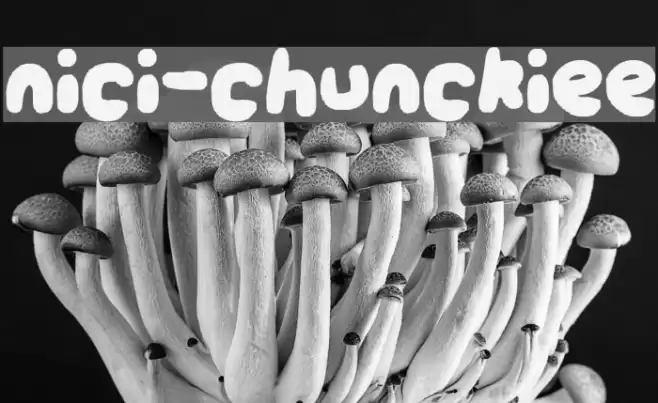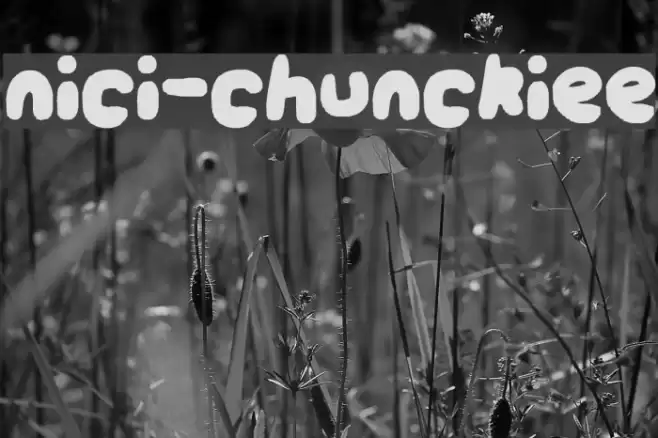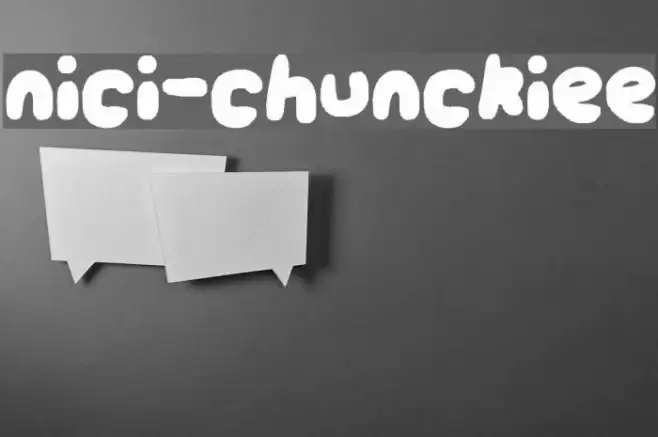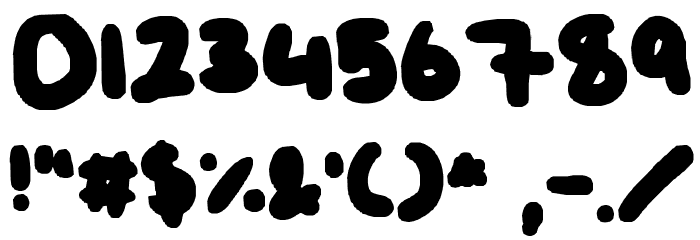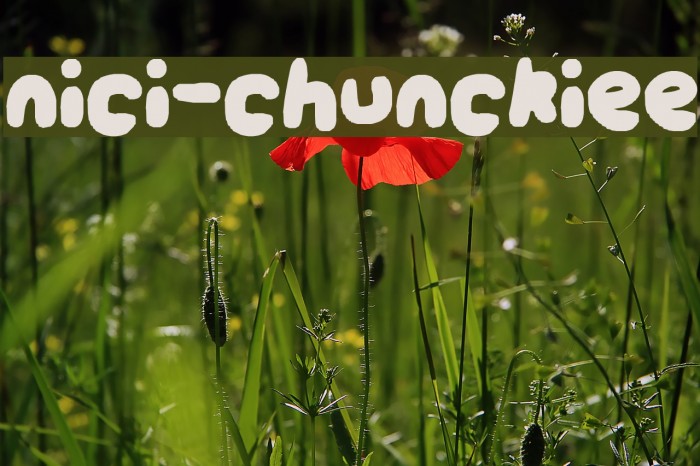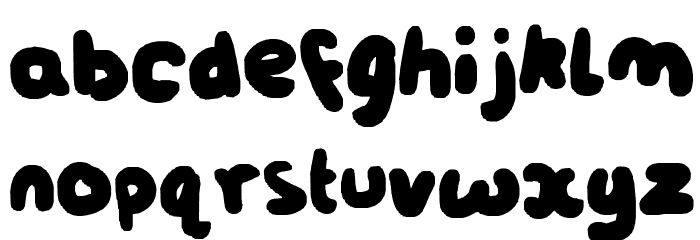
nici-chunckiee Font
nici-chunckiee Description
This font features a bold, playful style with rounded, chunky letters that convey a sense of fun and informality. The characters are uniformly thick, giving them a strong presence on the page. The uppercase and lowercase letters maintain a consistent weight, creating a cohesive look across the alphabet. Numbers and special characters follow the same design principles, ensuring uniformity. The overall appearance is reminiscent of hand-drawn or marker-style typography, making it ideal for projects that require a casual and approachable aesthetic.
A bold, playful font with rounded, chunky letters and a hand-drawn feel from Uncategorized fonts.
- Proposed Projects: Great for children's books, playful branding, posters, and informal invitations.
- Overall Style: Playful, Casual